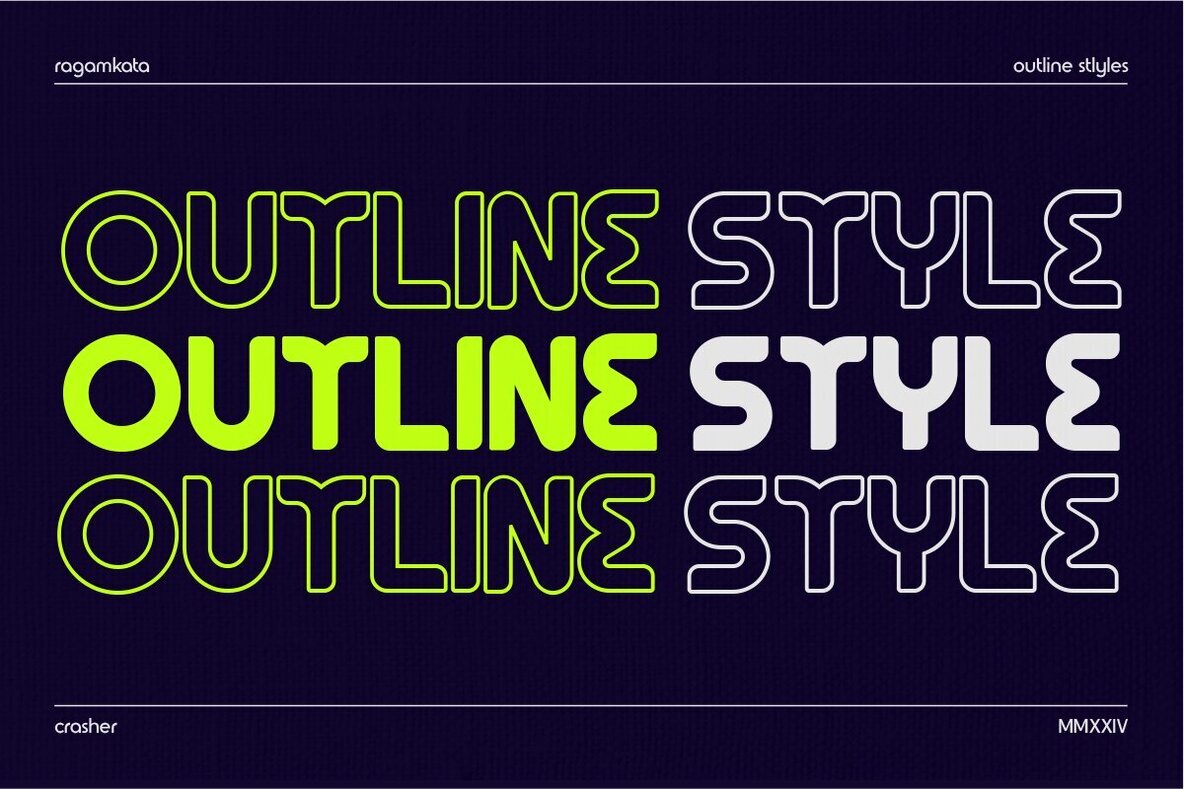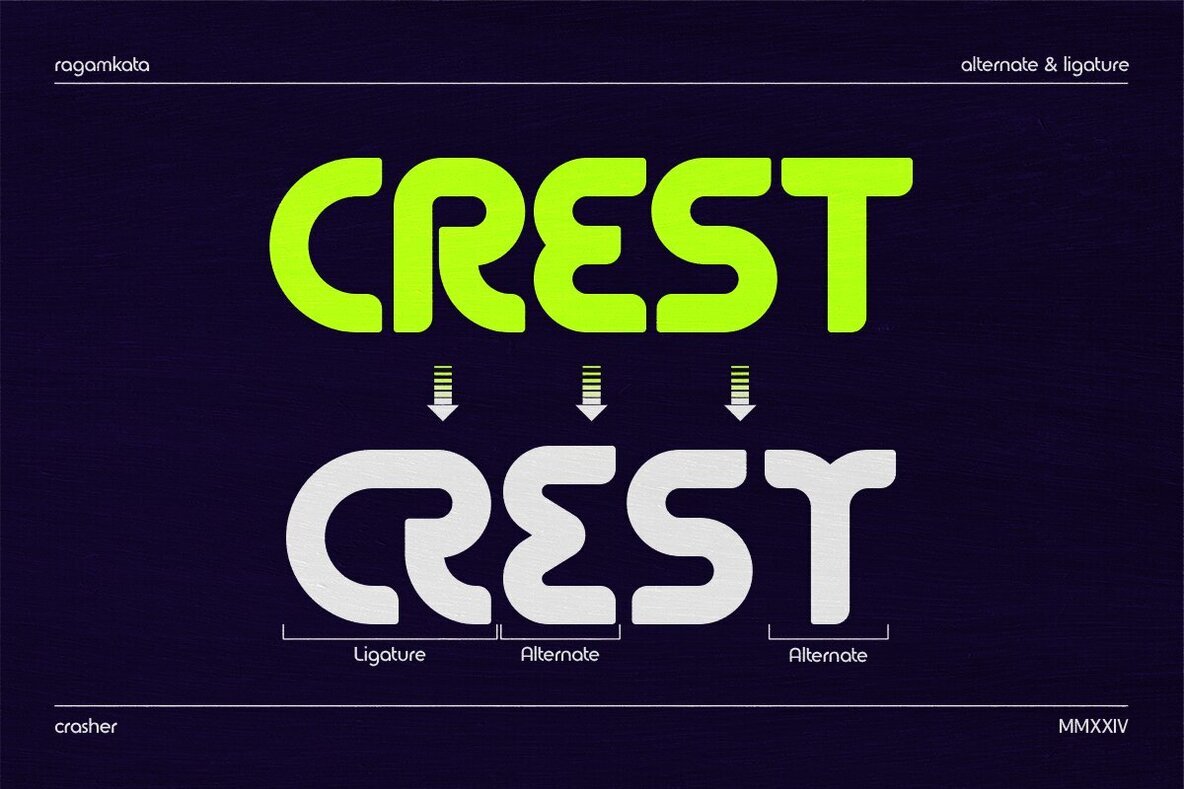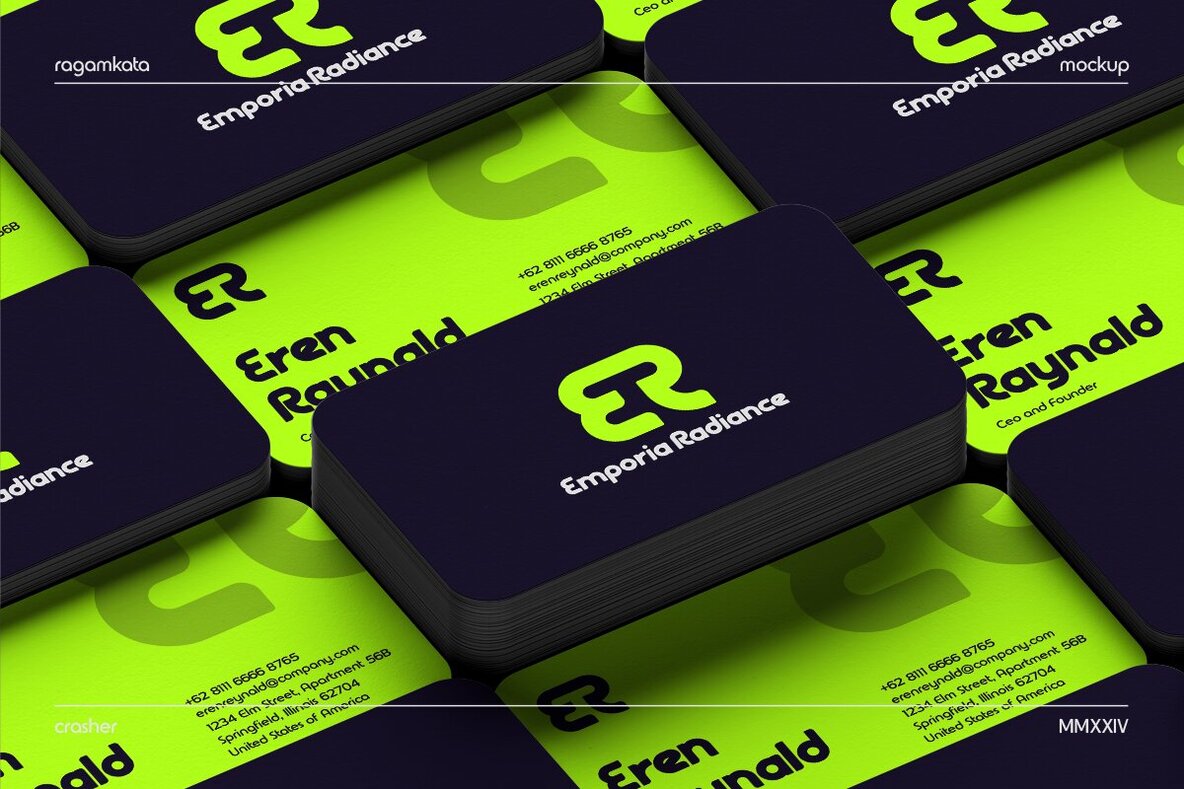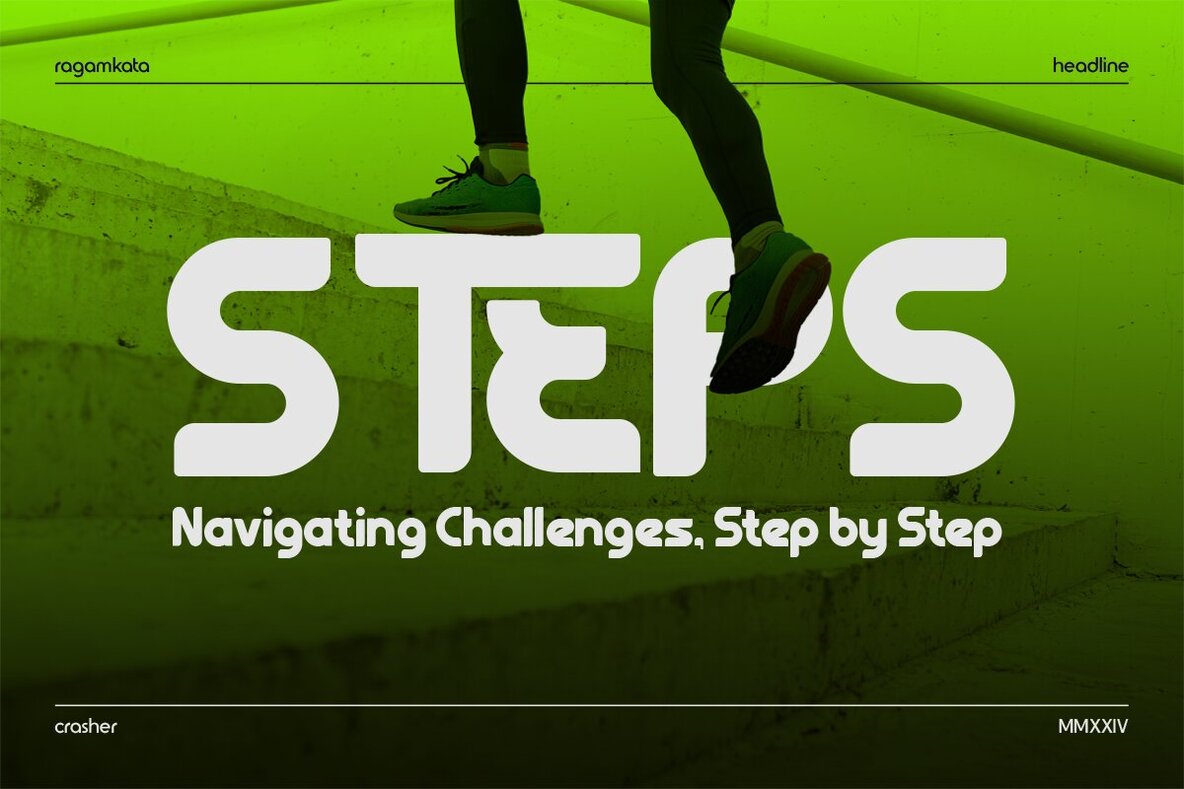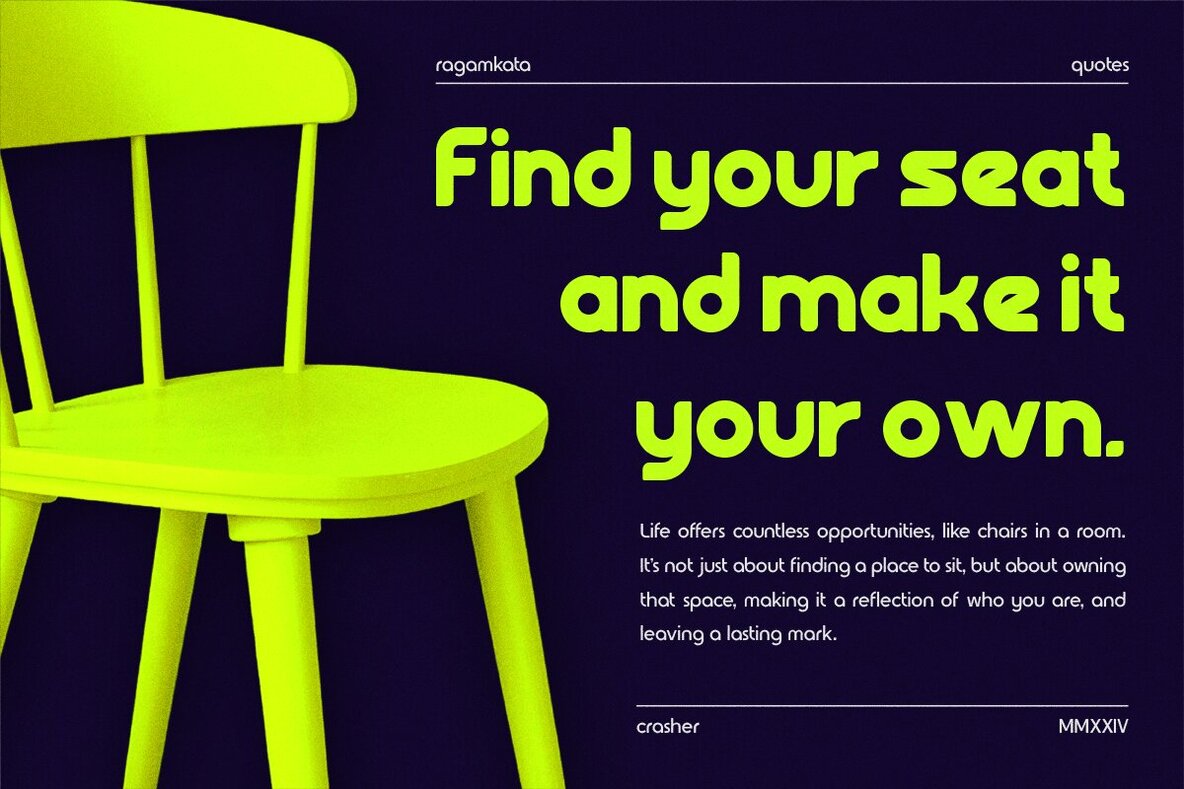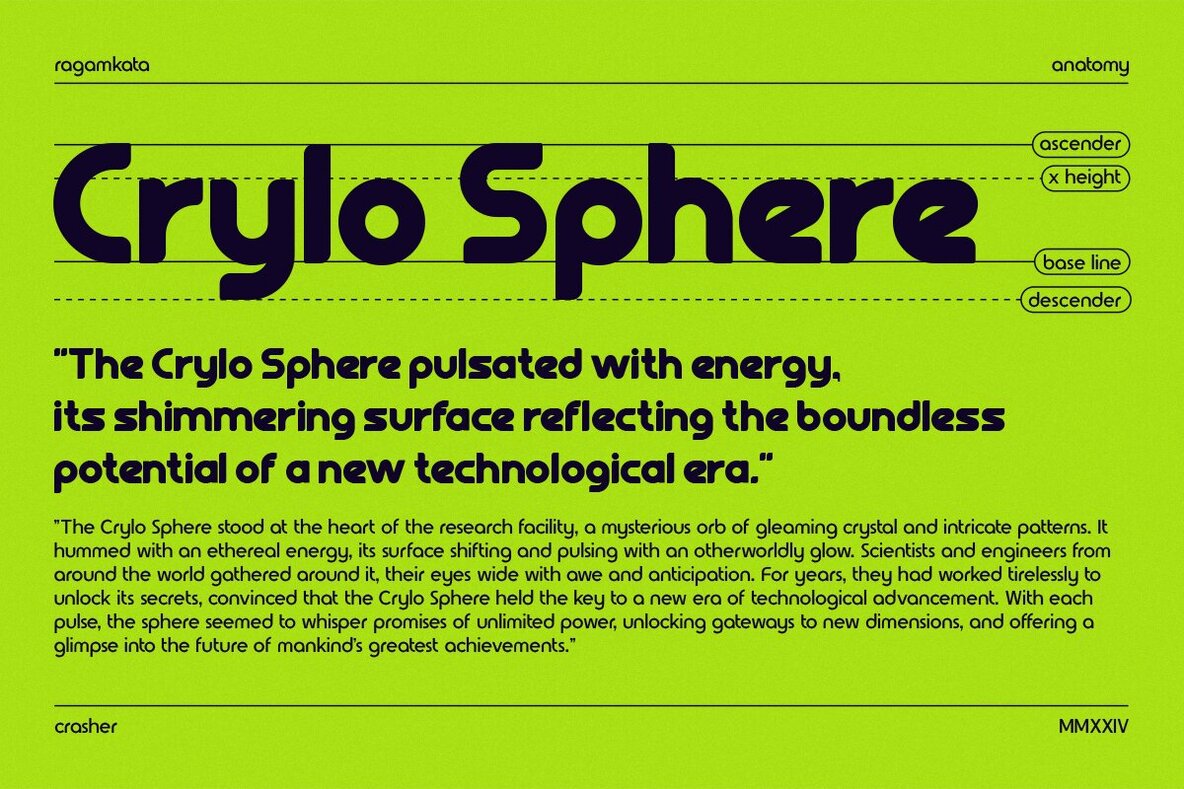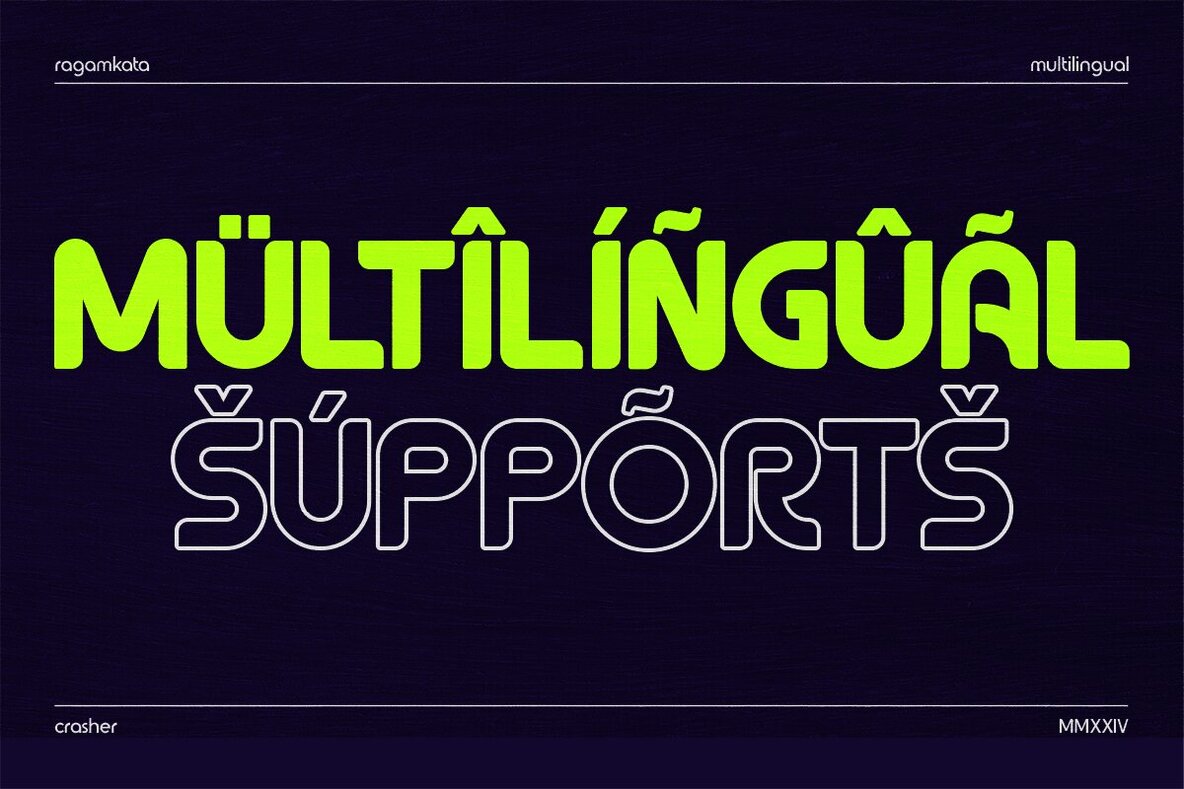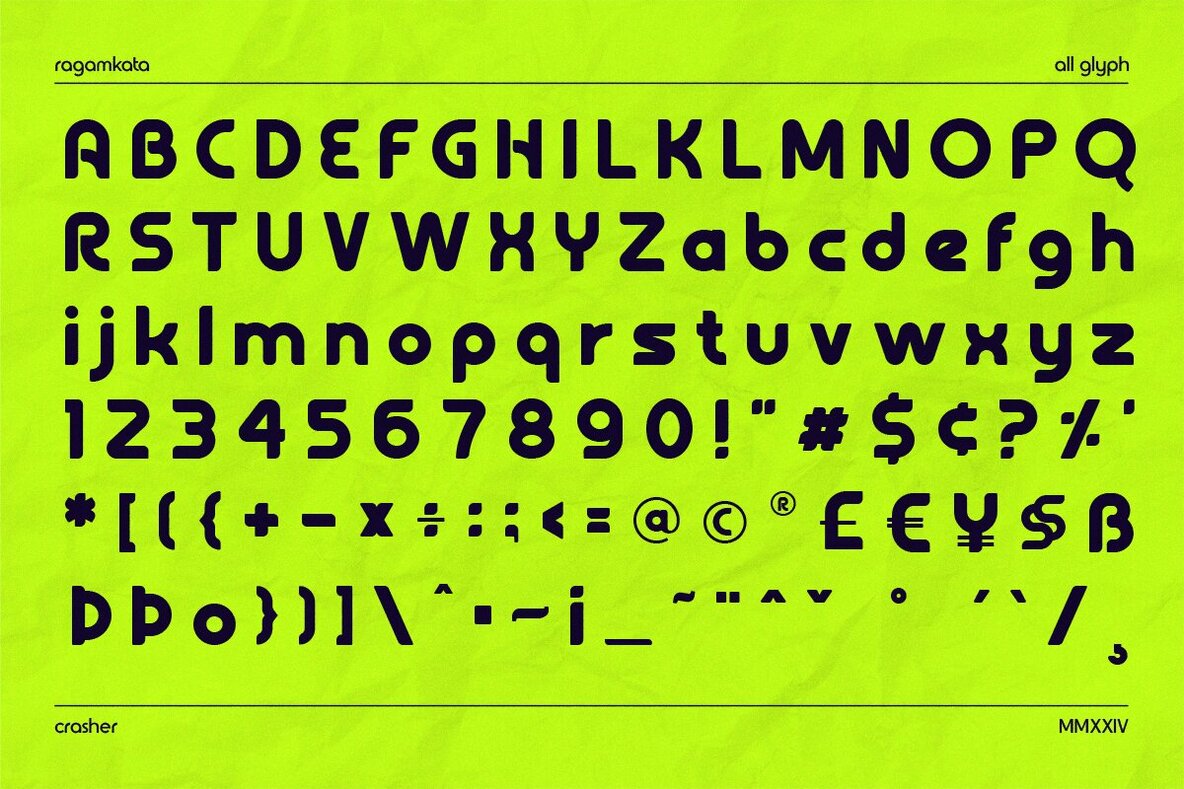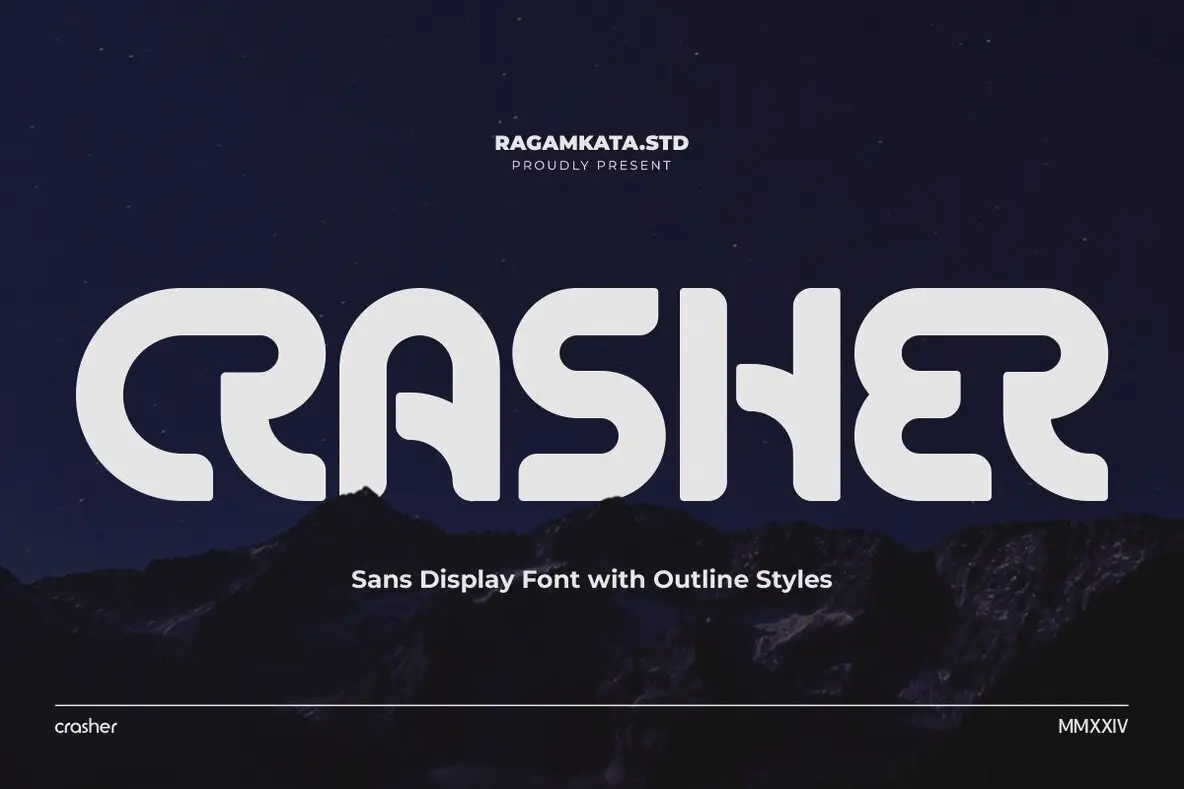
Crasher Font
Crasher is a Sans display typeface that embodies a distinct science fiction style, making it ideal for logos, branding, headers, and titles. Designed with ligatures, precise kerning, and spacing, Crasher ensures that your designs are both impactful and memorable. Its sleek and modern look is perfect for projects that demand attention and clarity.
The Crasher font package includes Crasher Regular and Crasher Italic versions. Its multilingual capability broadens its usability across diverse projects, catering to global audiences. Whether crafting brand identities or designing futuristic interfaces, Crasher offers the flexibility and style to elevate your visual projects.